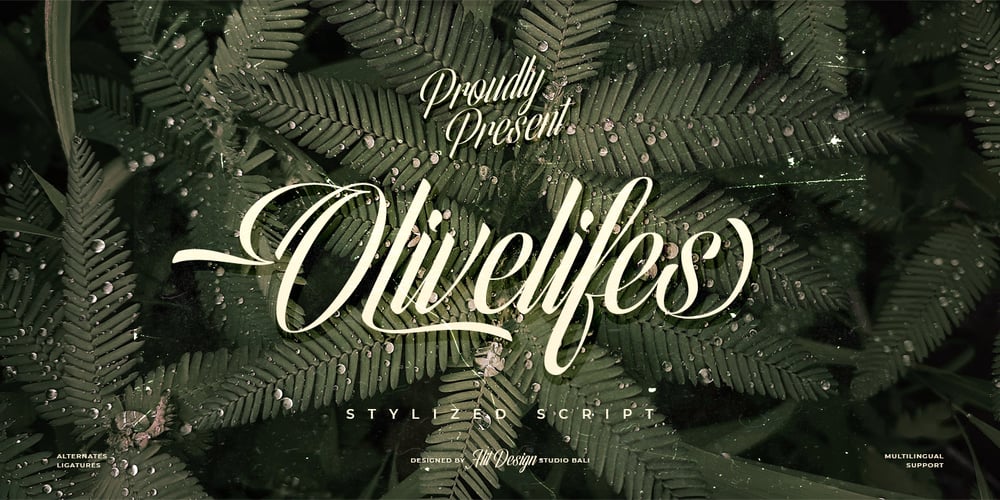
Olivelifes Font Family was designed by Alit Suarnegara and published by Alit Design. Olivelifes contains 1 styles and family package options. Introducing Olivelifes Script Font – a fierce, speedy, and dynamic typeface designed to bring a bold, energetic flair to your projects. With its sleek curves, stunning ligatures, and elegant swashes, Olivelifes Script Font captures the essence of motion and style in every stroke.Key Features: Fierce Script: Bold and striking, Olivelifes Script Font is perfect for making a powerful statement. Speedy & Dynamic: Inspired by the swift movement, this font conveys a sense of speed and agility. Ligature Magic: Enjoy seamless connections between letters with beautifully crafted ligatures that add a touch of sophistication. Elegant Swashes: Enhance your text with graceful swashes, giving a luxurious and stylish finish to your designs. Comprehensive Character Set: With a whopping 711 characters, Olivelifes Script Font offers extensive language support and versatile typographic options. Perfect For: Branding and logo design Advertising and promotional materials Social media graphics and posts Wedding invitations and greeting cards Apparel design and merchandise Dynamic website headers and banners Bring your creative projects to life with the high-energy and captivating style of Olivelifes Script Font. Make your message roar with fierce elegance and unstoppable speed!